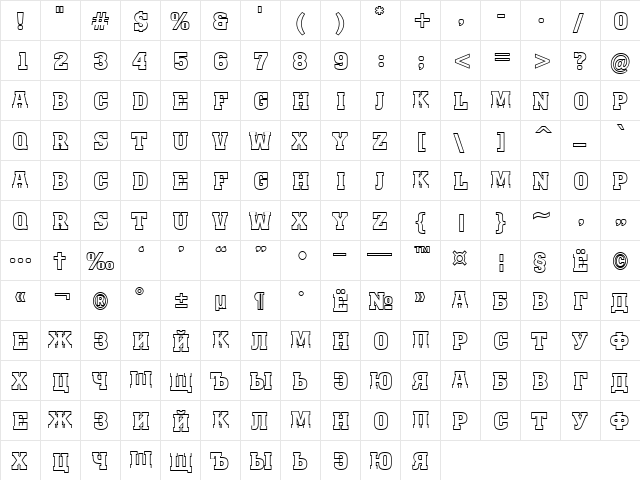
a_MonumentoTitulOtl Bold
Design Context for a_MonumentoTitulOtl Typeface
a_MonumentoTitulOtl takes a measured approach to typography — its balanced proportions and neutral character make it a reliable workhorse for both digital and print work. The heavy weight commands attention and anchors typographic hierarchies.